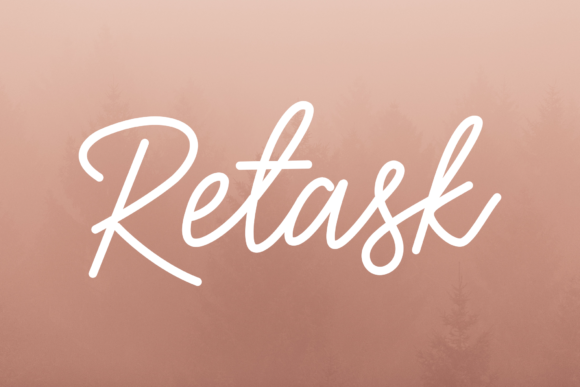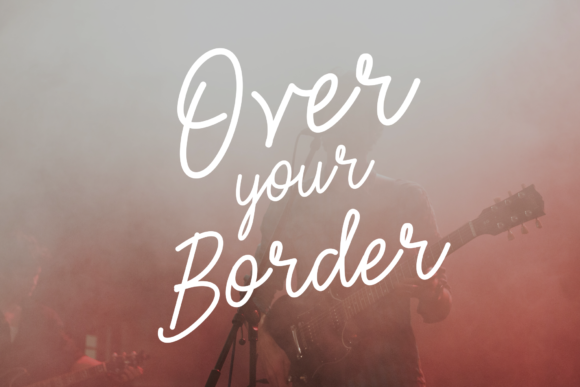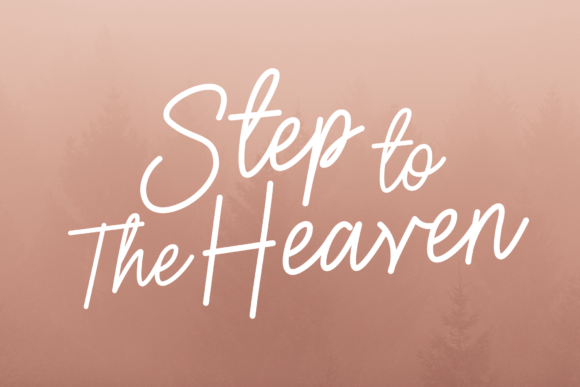
Retask Font
About Retask Font
Retask is a clean, bouncy, and beautiful script font featuring simple and funny characters that seem to flow into one another. Retask can be incorporated into many designs, including quotes, wedding invitations, posters, custom cards for friends and family, and more.